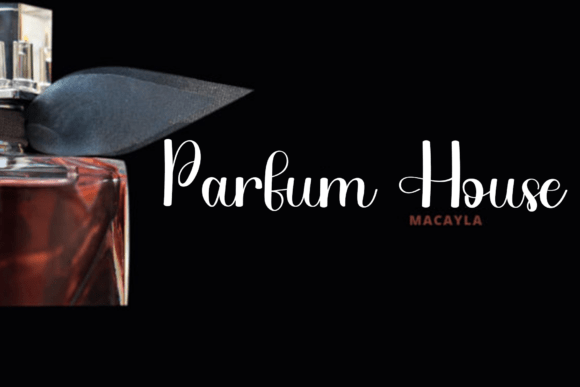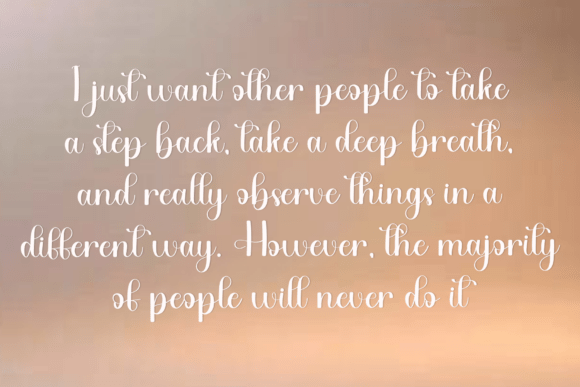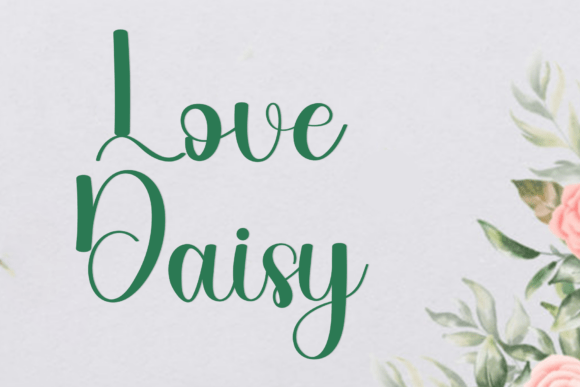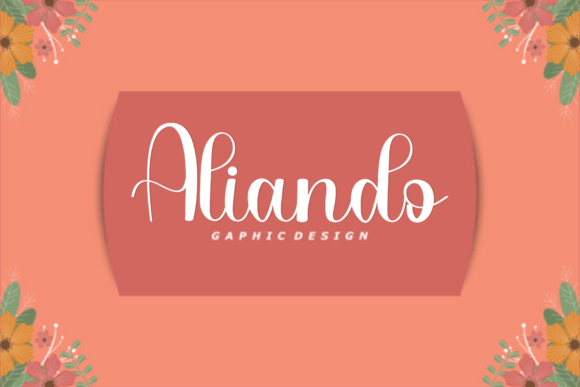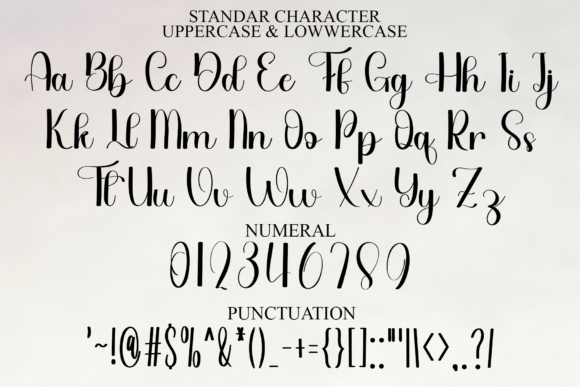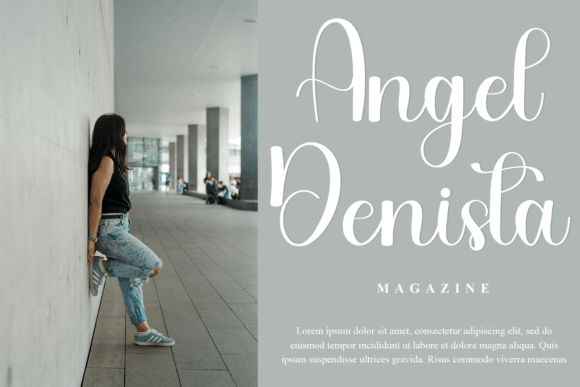
Discover the Whimsical Charm of Angela Adventure Font
Embark on a creative journey with Angela Adventure, a “sweet” calligraphy typeface that balances whimsical charm with professional grace. This beautiful font is perfect for designers and crafters looking to add a touch of elegance and personality to their projects. In this article, we’ll explore the unique features of Angela Adventure and discover the best ways to use it in your designs.
A Font that Captures Lighthearted Elegance
Angela Adventure is characterized by its tall, slender ascenders and delicate, hand-penned rhythm. This font captures a sense of lighthearted elegance, making it perfect for brands that want to communicate warmth, adventure, and a personal, boutique-style touch. Its flowing connections and organic terminals give it a unique and sophisticated look that’s sure to stand out.
Ideal for Creative Projects
Angela Adventure is a versatile font that can be used in a variety of creative projects. Here are some of the best ways to use it:
• Travel blogs: Add a touch of adventure and wanderlust to your travel blog with Angela Adventure. Its whimsical charm and elegant flow make it perfect for capturing the essence of travel and exploration.
• Feminine branding: Angela Adventure is a great choice for feminine branding, as it exudes a sense of elegance and sophistication. Use it to create a beautiful and memorable brand identity that resonates with your target audience.
• Wedding stationery: Make your wedding stationery truly special with Angela Adventure. Its delicate and hand-penned rhythm makes it perfect for creating beautiful wedding invitations, save-the-date cards, and more.
• Boutique product labels: Add a touch of elegance and sophistication to your boutique product labels with Angela Adventure. Its unique and flowing connections make it perfect for creating eye-catching and memorable labels.
• Personalized gift tags: Create beautiful and personalized gift tags with Angela Adventure. Its whimsical charm and elegant flow make it perfect for adding a special touch to gifts for friends and loved ones.
Why Choose Angela Adventure?
So why choose Angela Adventure for your next project? Here are just a few reasons:
• Unique and elegant design: Angela Adventure has a unique and elegant design that’s sure to stand out in any project.
• Versatile and adaptable: This font is versatile and adaptable, making it perfect for a wide range of creative projects.
• Easy to read and understand: Despite its elegant and flowing design, Angela Adventure is easy to read and understand, making it perfect for use in body text and headlines.
• Perfect for branding and marketing: Angela Adventure is perfect for use in branding and marketing materials, as it exudes a sense of elegance and sophistication.
Tips for Using Angela Adventure
Here are a few tips for using Angela Adventure in your designs:
• Use it with contrasting fonts: Angela Adventure looks great when paired with contrasting fonts, such as bold and sans-serif fonts.
• Experiment with different sizes and colors: Don’t be afraid to experiment with different sizes and colors of Angela Adventure to create visual interest and hierarchy in your designs.
• Use it to add a personal touch: Angela Adventure is perfect for adding a personal touch to your designs, so don’t be afraid to use it to create a unique and bespoke look.
Angela Adventure is a beautiful and elegant font that’s perfect for designers and crafters looking to add a touch of whimsy and sophistication to their projects. With its unique and flowing design, it’s perfect for use in a wide range of creative projects, from travel blogs and feminine branding to wedding stationery and boutique product labels. So why not embark on a creative journey with Angela Adventure today and discover the perfect font for your next project?